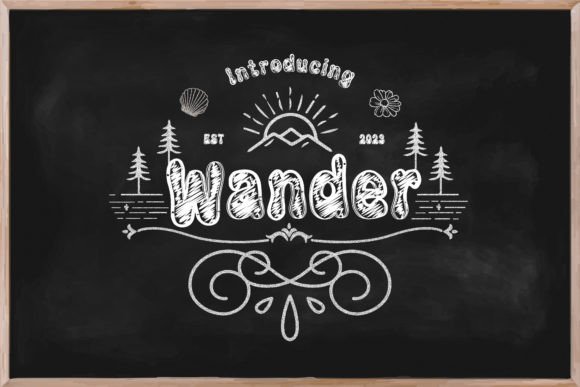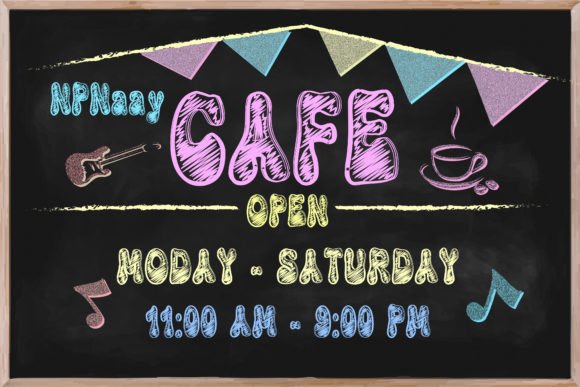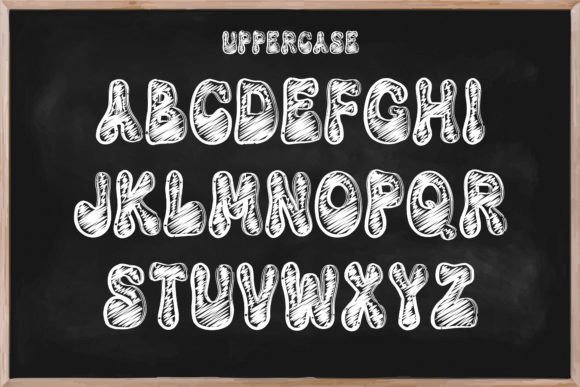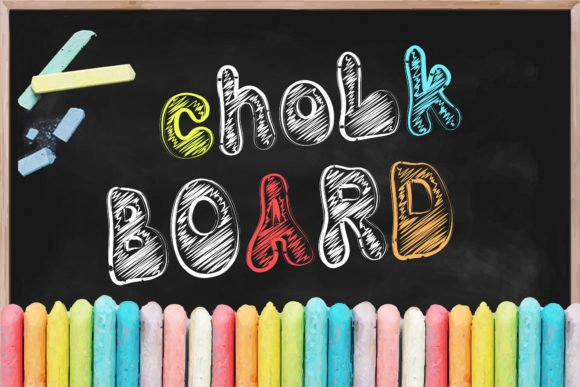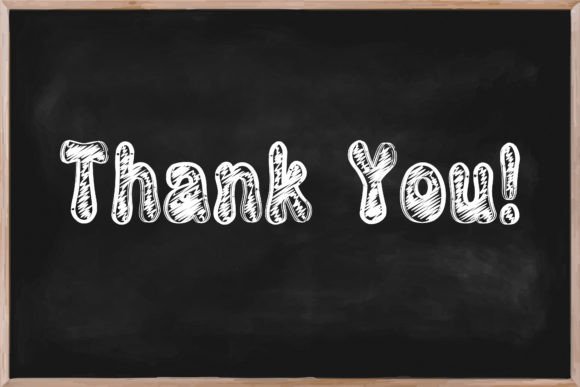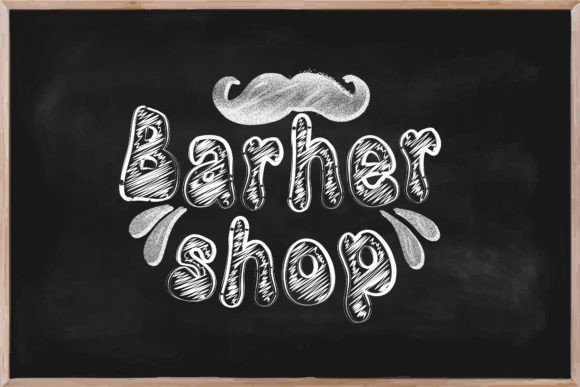
Getting Your Creative Groove On
Remember the thrill of creating something with your hands, watching your imagination unfold onto a piece of paper or a digital canvas? For many designers, that moment of pure creativity is what drives them to keep pushing boundaries and experimenting with new ideas. And sometimes, all it takes is the right tool to unlock that spark.
Enter the Chalk Groovy Font, a delightful display font that’s equal parts retro charm and modern cool. Whether you’re crafting greeting cards, designing headlines, or creating stickers, this font is the perfect companion to elevate your creations and make them truly special.
For designers, the Chalk Groovy Font is a valuable asset that can add a unique touch to any project. Its versatility and playfulness make it an excellent choice for a wide range of applications, from digital art to print materials. With this font, you’ll be able to add a dash of personality to your designs and make them truly stand out.
Chalk Groovy Font Key Features
- Unique Characteristics: This font features a unique, hand-drawn style with a distressed finish, giving it a nostalgic and retro feel.
Review: Chalk Groovy Font
As a designer, I was excited to dive into the Chalk Groovy Font, and I’m here to share my honest review. ✨ One of the things that really stands out about this font is its unique, playful vibe. It’s perfect for adding a touch of whimsy to projects that need a little extra personality.
- ✨ The font’s versatility – it’s great for headings, body text, and even logos.
- ✨ The extensive character set, which includes a range of ligatures and swashes.
- ✨ The font’s high-quality vector files, which make it easy to scale up or down without losing any detail.
However, I did encounter a few limitations:
- ⚠️ The font’s readability can be a bit compromised at smaller font sizes, especially for body text.
- ⚠️ Some users may find the font’s irregular letterforms to be distracting or difficult to read.
Overall, I think the Chalk Groovy Font is a solid choice for designers who want to add a bit of personality to their projects. While it may not be perfect for every situation, it’s definitely worth considering for the right project.
Getting the Most Out of Chalk Groovy Font
Chalk Groovy Font is perfect for creating a fun and playful design. To get the most out of it, try using it in combination with other bold and colorful fonts. You can also experiment with different font sizes and styles to create a unique and eye-catching look.
Chalk Groovy Font is commonly used in designs that require a fun and playful touch, such as:
- Social media graphics and posts
- Event invitations and flyers
- Children’s products and packaging